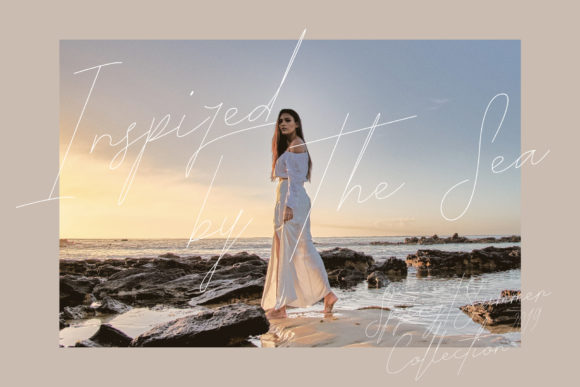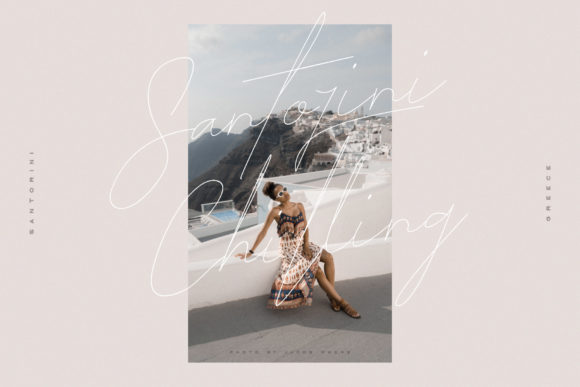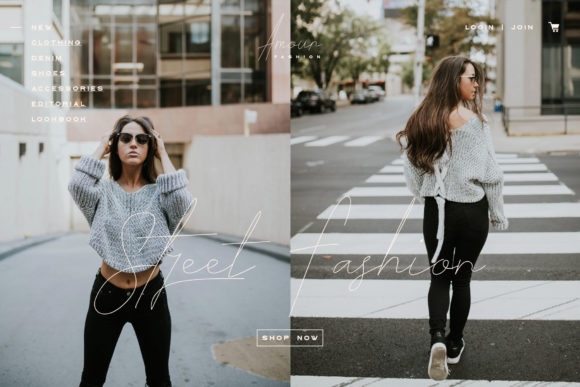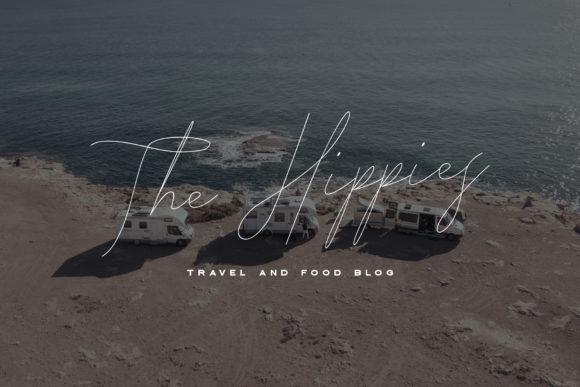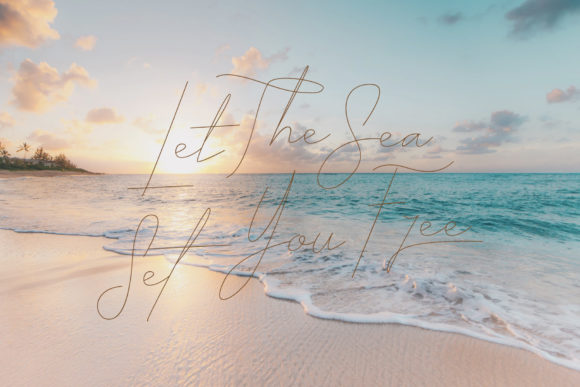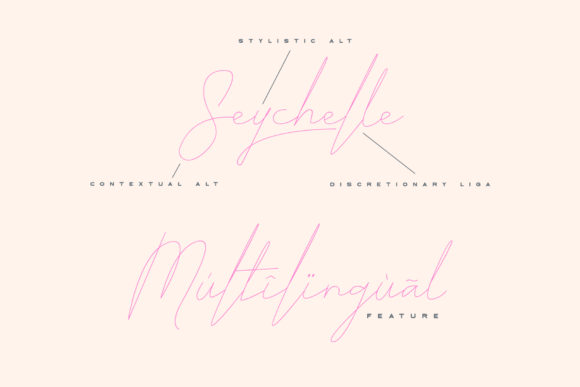
Introduction to Seychelle Font
As you sit at your desk, surrounded by scraps of paper and half-finished designs, you know the moment of inspiration is just around the corner. You’re brainstorming ideas for a new project, and suddenly, the perfect font pops into your mind. For many designers, the right font can be the missing piece that brings their creative vision to life. In this article, we’ll explore the Seychelle Font, a beautiful and versatile handwritten font that’s perfect for adding a personal touch to any design.
Whether you’re working on a branding project or creating a social media graphic, the Seychelle Font is a valuable resource for designers. Its light and casual feel makes it perfect for adding a touch of whimsy to your designs, and its transparent background makes it easy to use on any background. With its high-quality design, you can trust that your project will look professional and polished.
Key Features of Seychelle Font
- Unique, elegant script font ideal for creative projects and design resources.
- High-quality design, featuring intricate details and smooth lines, perfect for adding a touch of elegance to any project.
Honest Review: Seychelle Font
I recently stumbled upon the Seychelle Font, and I must say, it’s a fantastic addition to any designer’s toolkit. The Seychelle Font is a beautiful, elegant script font that’s perfect for creative projects that require a touch of sophistication.
- The Seychelle Font has a very high quality, with crisp lines and smooth curves.
- It’s incredibly versatile, making it suitable for a wide range of design applications, from logos to product packaging.
- The Seychelle Font may not be suitable for very large-scale projects, as it can be a bit overwhelming in certain contexts.
- The font may not have the same level of sophistication as more premium fonts, but it’s still a great option for designers looking for a high-quality script font.
Overall, I’m really impressed with the Seychelle Font. It’s a fantastic design resource that’s perfect for creative projects that require a touch of elegance. I would highly recommend it to designers looking for a high-quality script font.
The Seychelle Font is commonly used in a variety of design projects, including business cards, brochures, and website headers. Its elegant and sophisticated appearance makes it ideal for creative professionals and businesses looking to make a lasting impression.